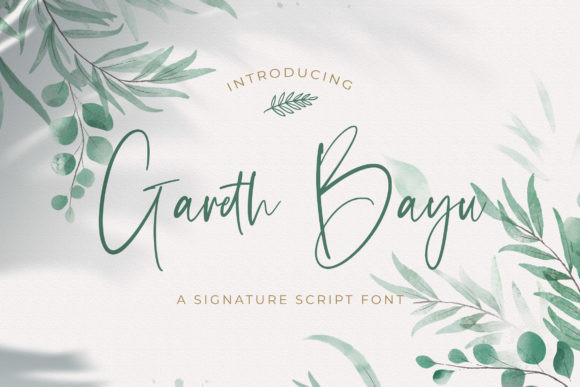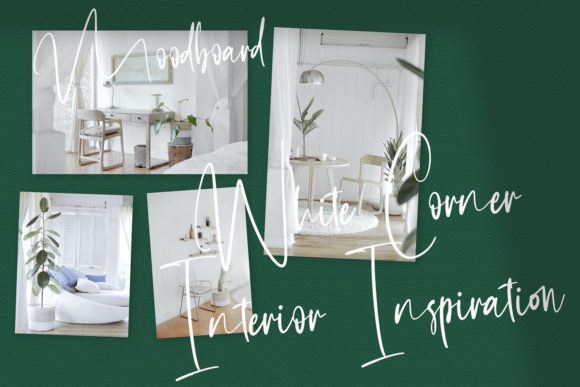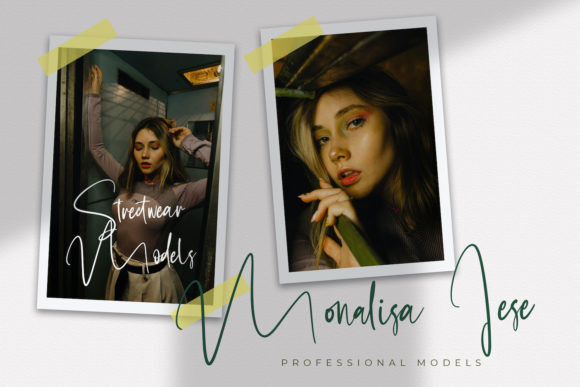
Gareth Bayu Font
Gareth Bayu is a thin lettered, stylish and cursive script font. It will add a luxury spark to any design project that you wish to create! Fall in love with its incredibly versatile style and use it to create spectacular designs!